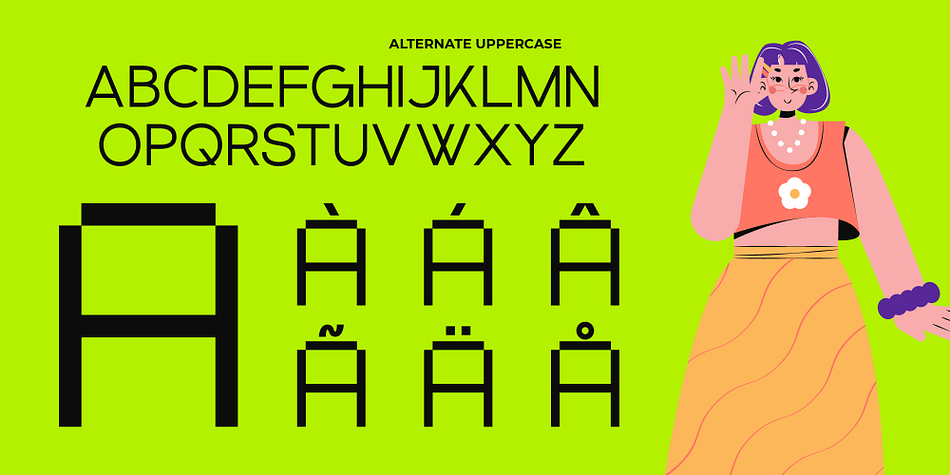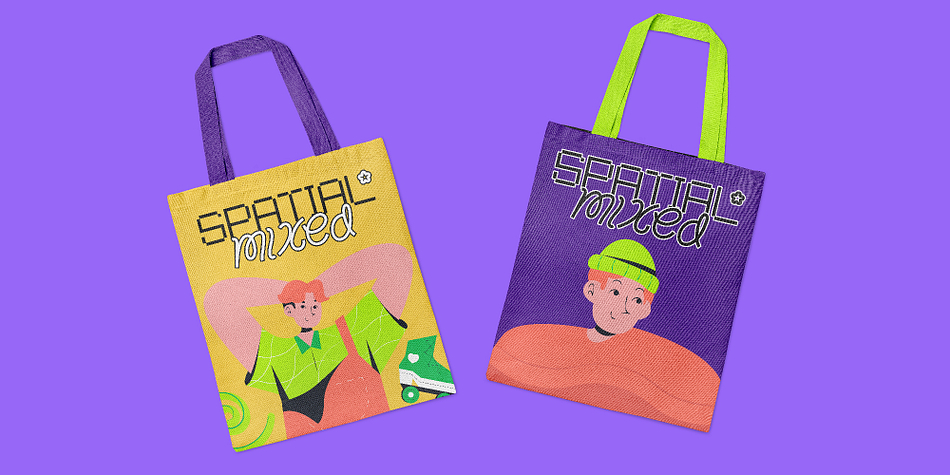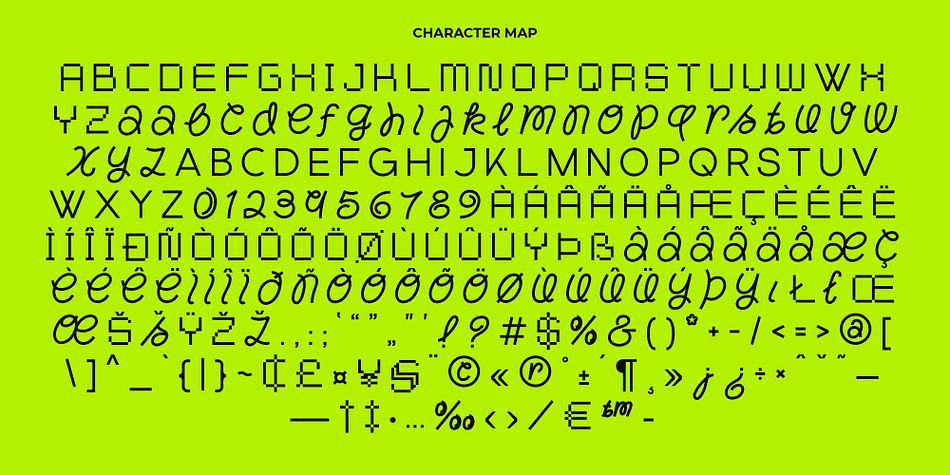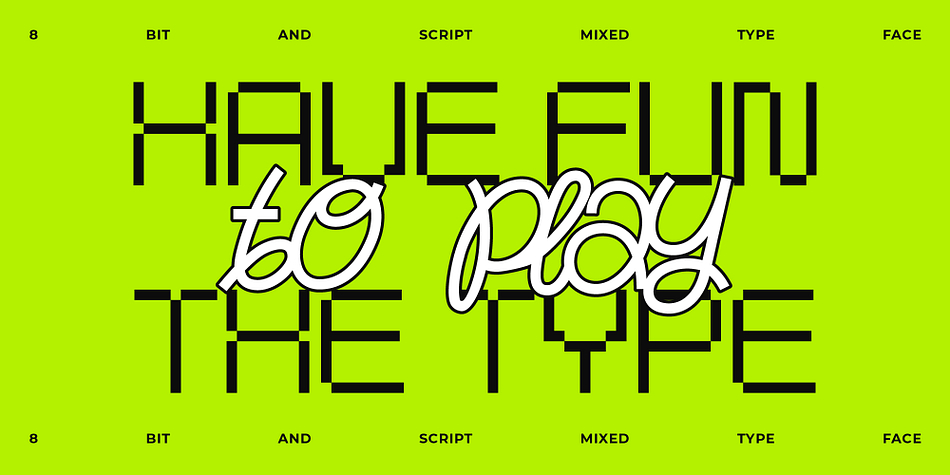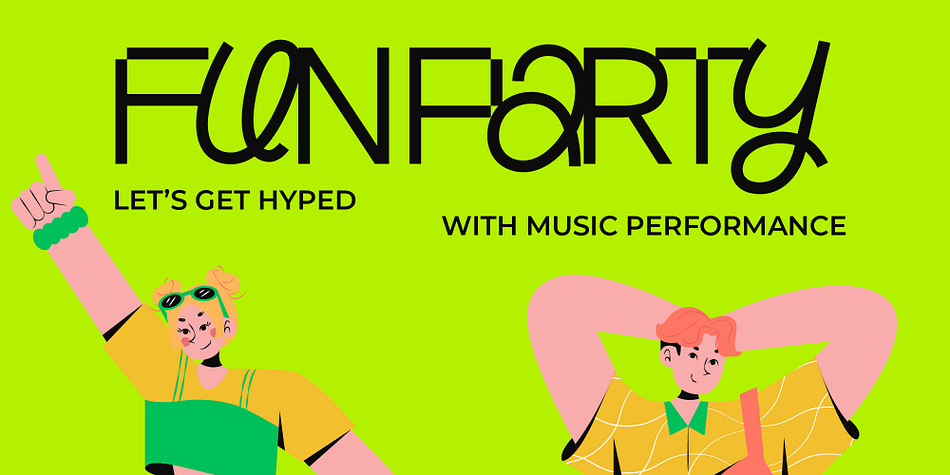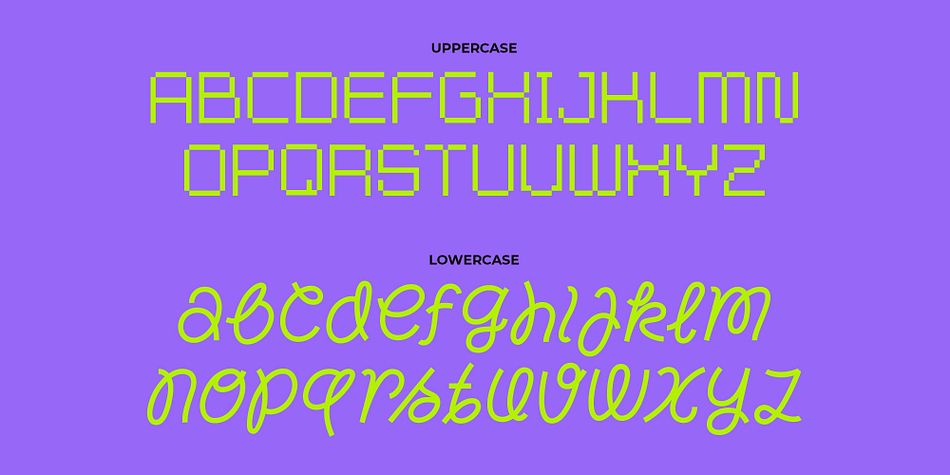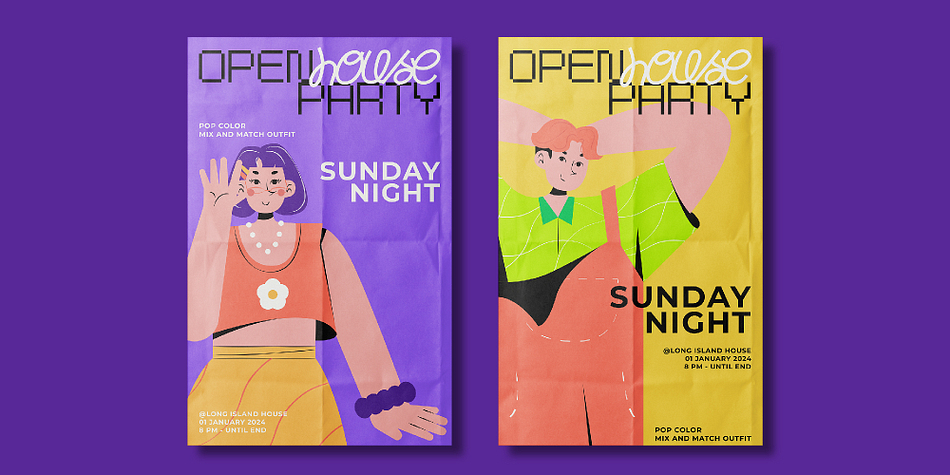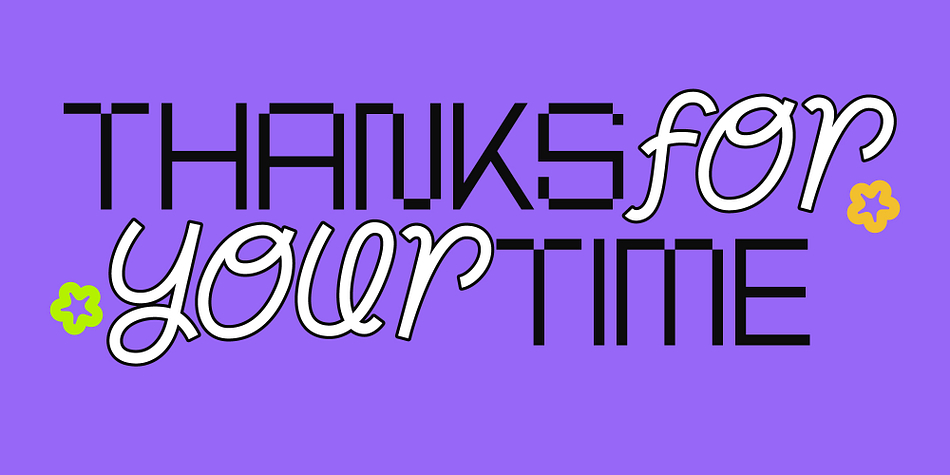
SPATIAL MIXED
Designed by Lucky Fitriadi, SPATIAL MIXED is a pixel font family. This typeface has two styles and was published by Brainwaves Studio.
A revolutionary typeface designed for the era of classic Nintendo bitmap games and other retro pixel digital aesthetics. Combining the nostalgic charm of 8-bit retro style with the smooth and flexible curves of modern line script fonts, this unique display font bridges the gap between digital nostalgia and gentle curves.